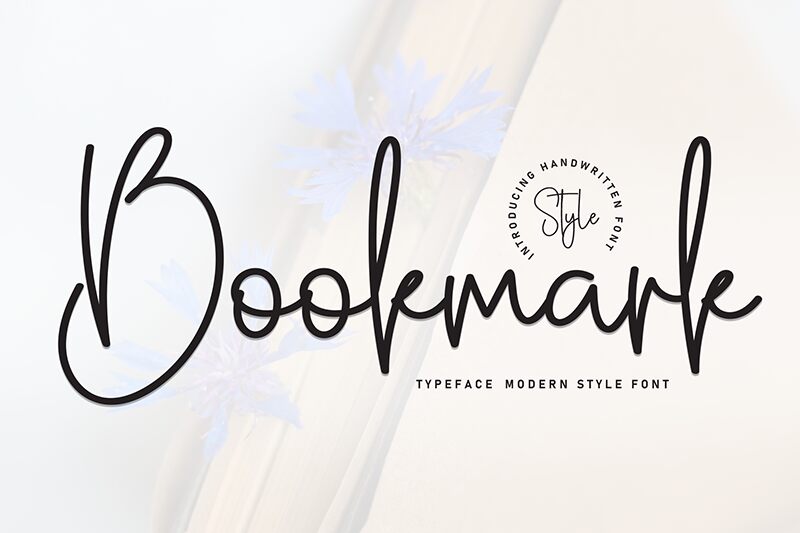
Bookmark
Bookmark font by Scratchones combines a casual handwritten appearance with flowing curves. This light signature style brings out a sense of personal touch which encourages readers to take action. The letters have natural details typical of handwriting that make the font especially eye-catching and real.
This free handwritten font is ideal for book covers, bookmarks, invitations, cards, certificates, logos, stationery designs, and much more. Reading apps can fully integrate this beautiful typography in their interfaces.